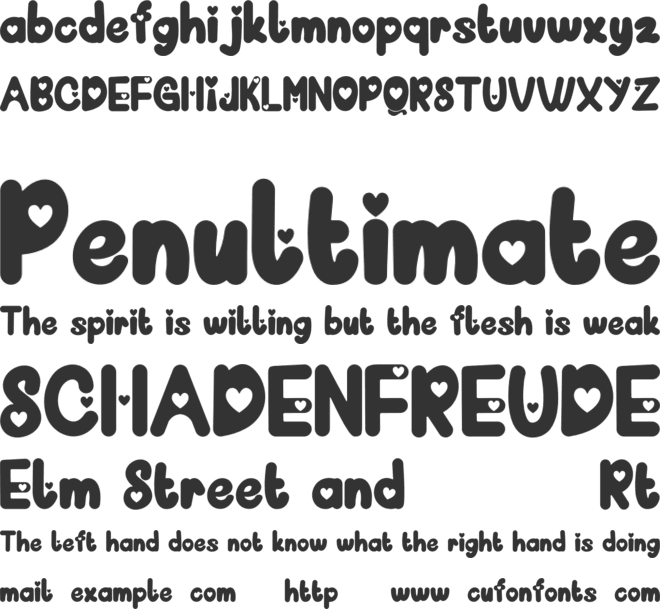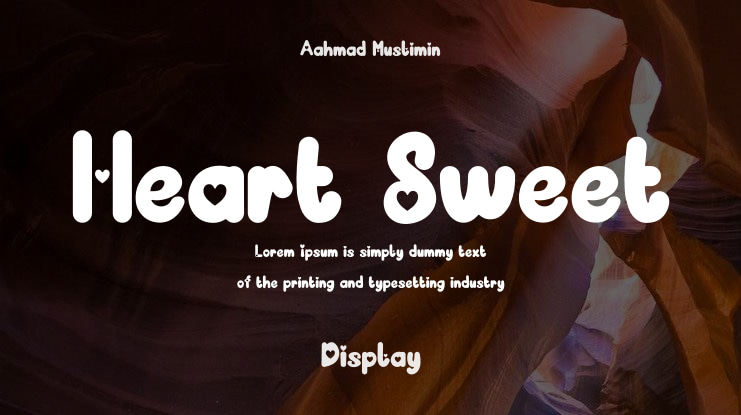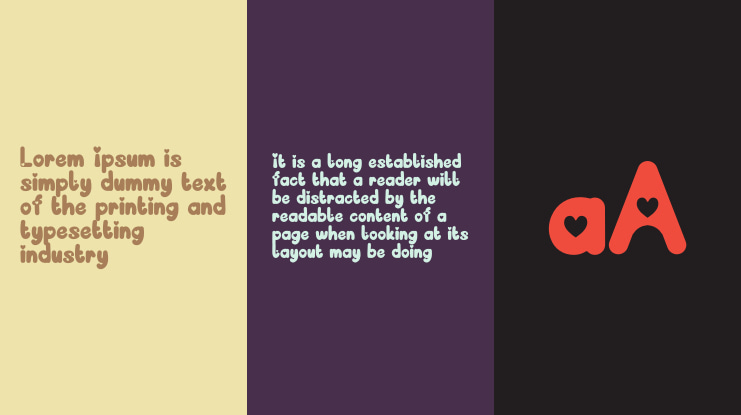
Aahmad Muslimin
Heart Sweet Font by Koplexs Studio is a bold, playful, and fancy display font designed to spread love, joy, and creativity. With its cute heart-shaped accents and rounded letters, this love font is perfect for Valentine’s Day, Mother’s Day, and holiday designs. Ideal for logos, posters, covers, teachers, and social media content, this decorative font adds a fun and cozy vibe to any project. Whether you’re crafting greeting cards, designing packaging, or creating classroom materials, Heart Sweet Font delivers charm and warmth in every word. Its thick bold font style ensures great readability, making it suitable for headline font, logo font, poster font, and more. Bring happiness and style to your creative work with this playful font that embodies the spirit of love, positivity, and fun. A must-have fancy font for every designer’s collection!